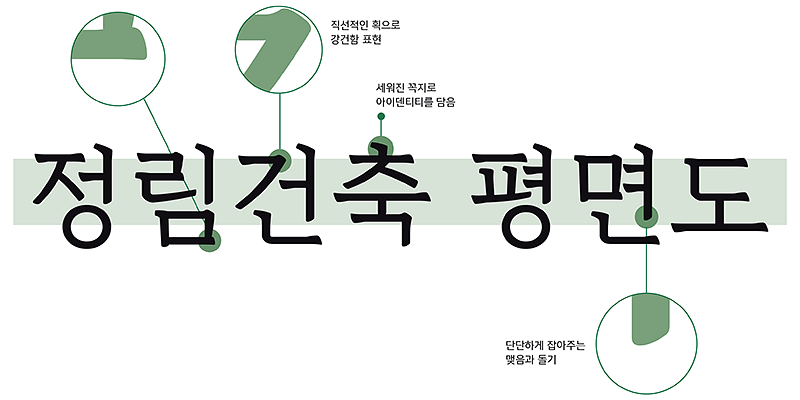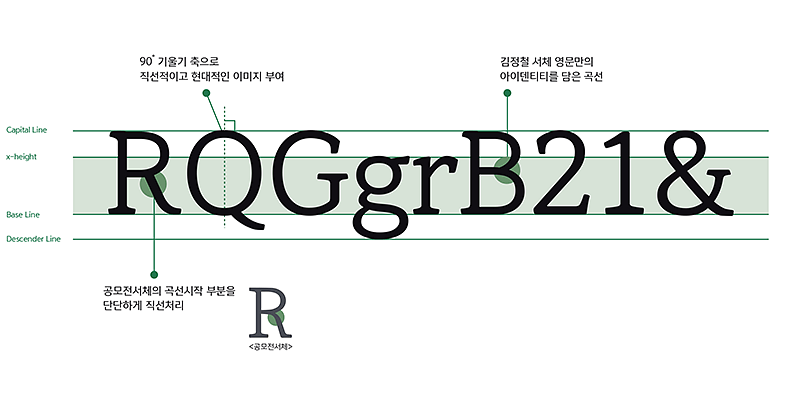
Kim Jeong-cheol Myeongjo & Gothic typefaces are Korean fonts optimized for architectural drawings. They were developed in commemoration of founder architect Kim Jeong-cheol, who introduced the CAD system to Korea for the first time. To compensate for the lack of Hangeul support in the old CAD system, he and his firm designed Hangeul graphics and used them in place of Korean text. Inheriting the spirit of architect Kim Jeong-cheol, Junglim Architecture hosted the ‘Typeface Design Competition for Architects.’ Based on the grand prize-winning work’s motif, we developed these nine digital typefaces with a type design company, Yoon Design Group.